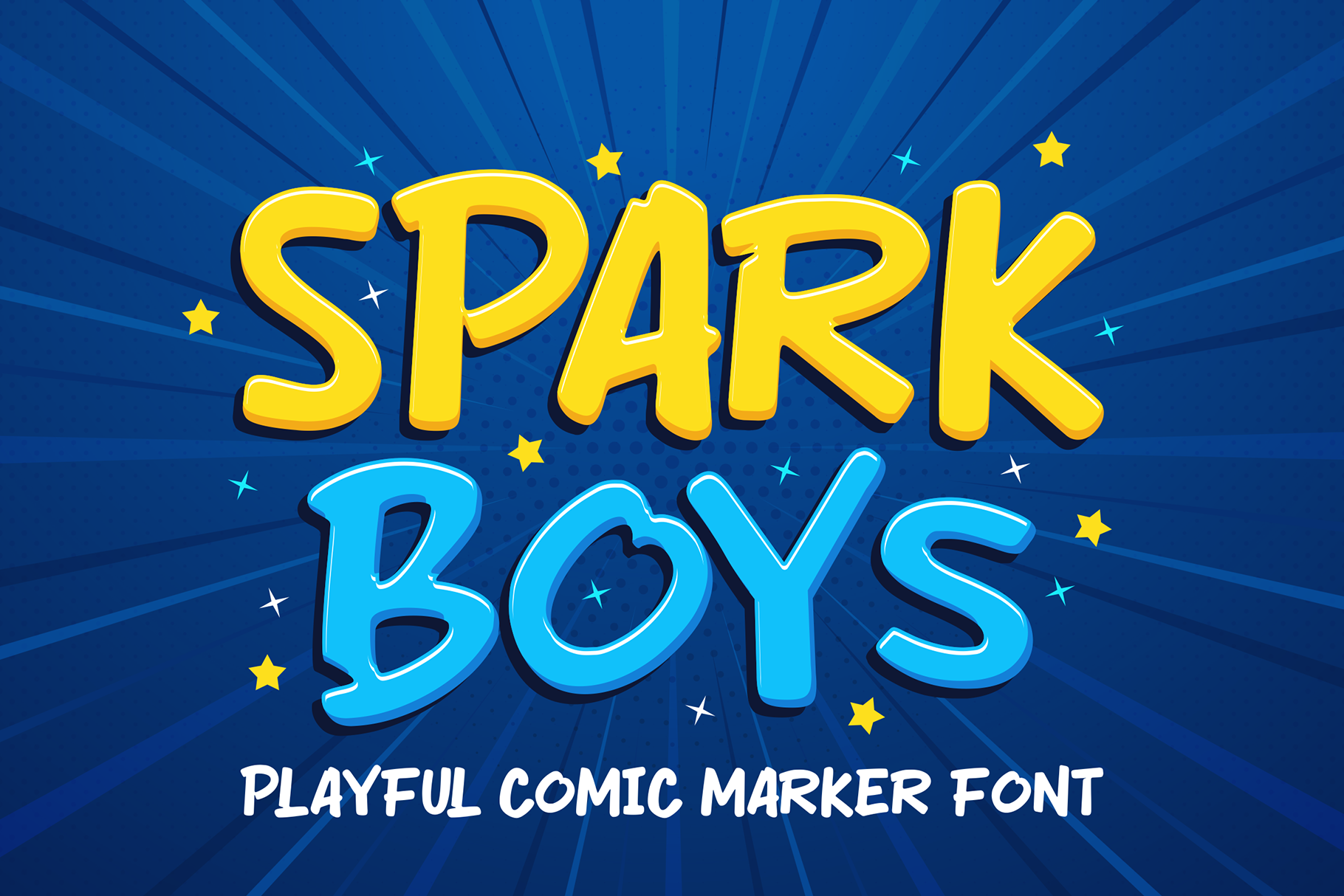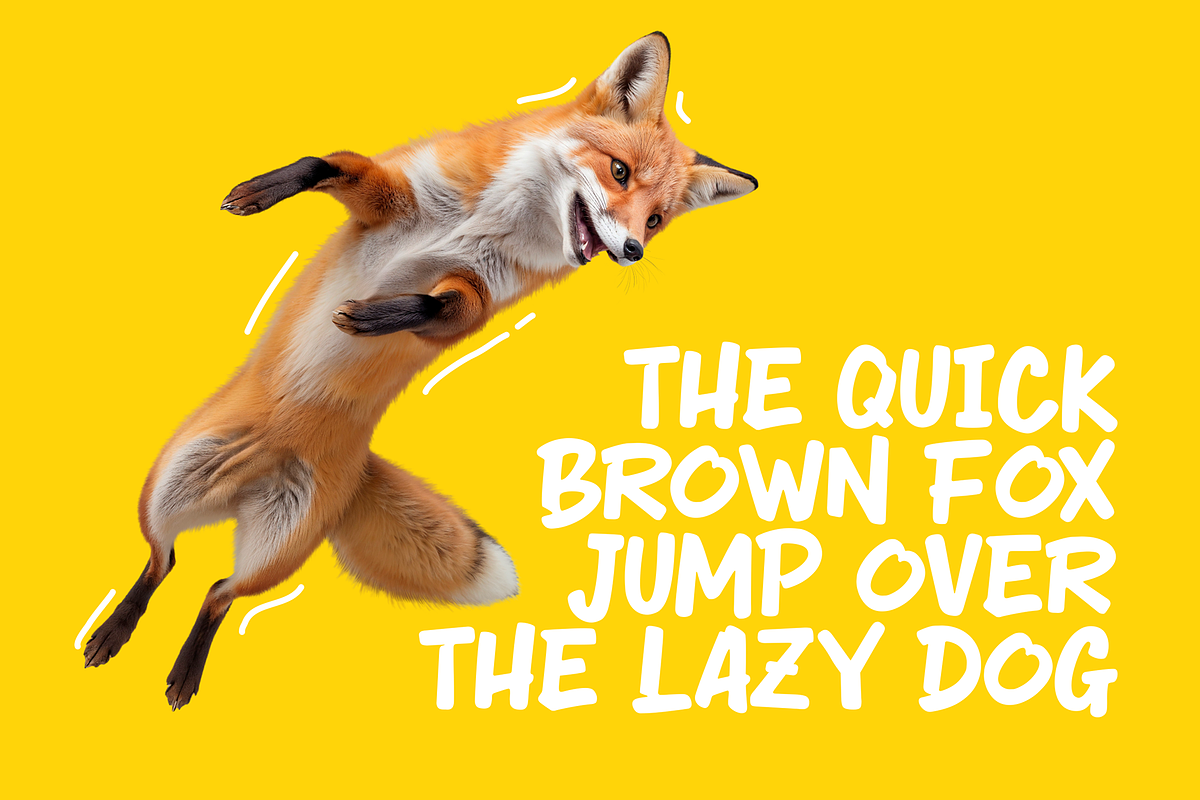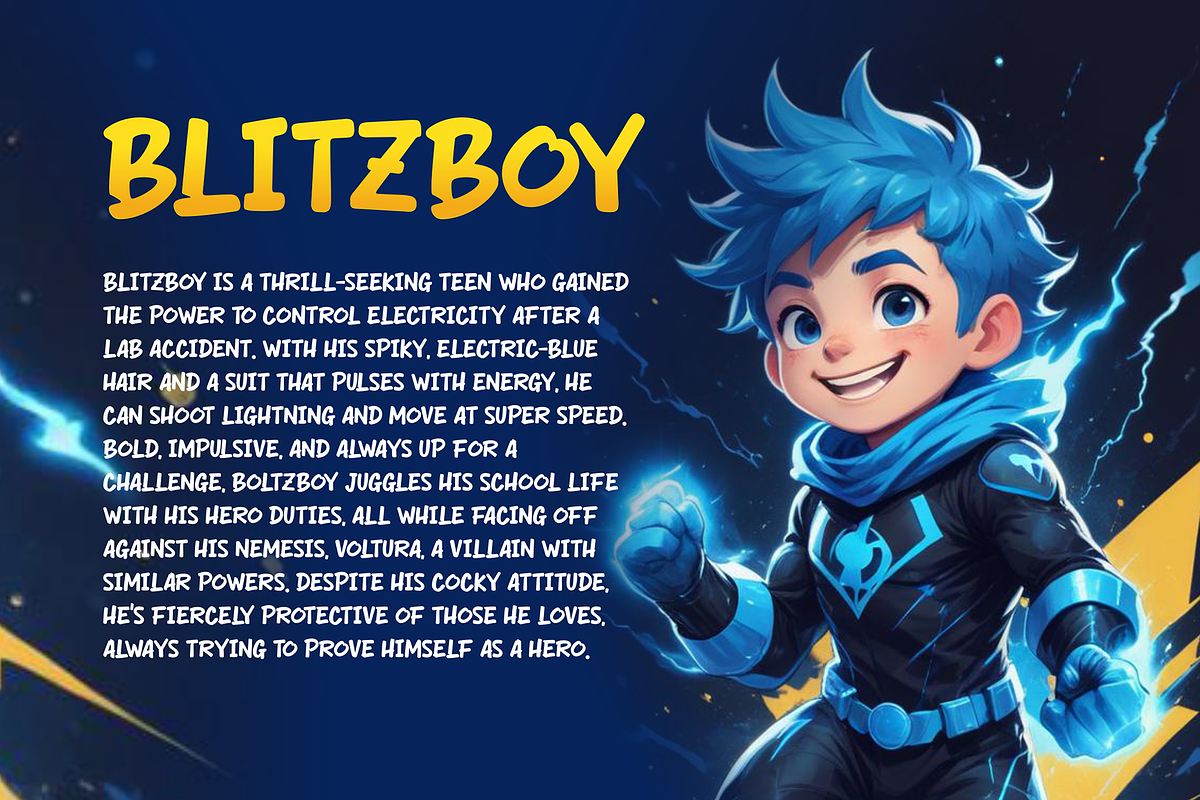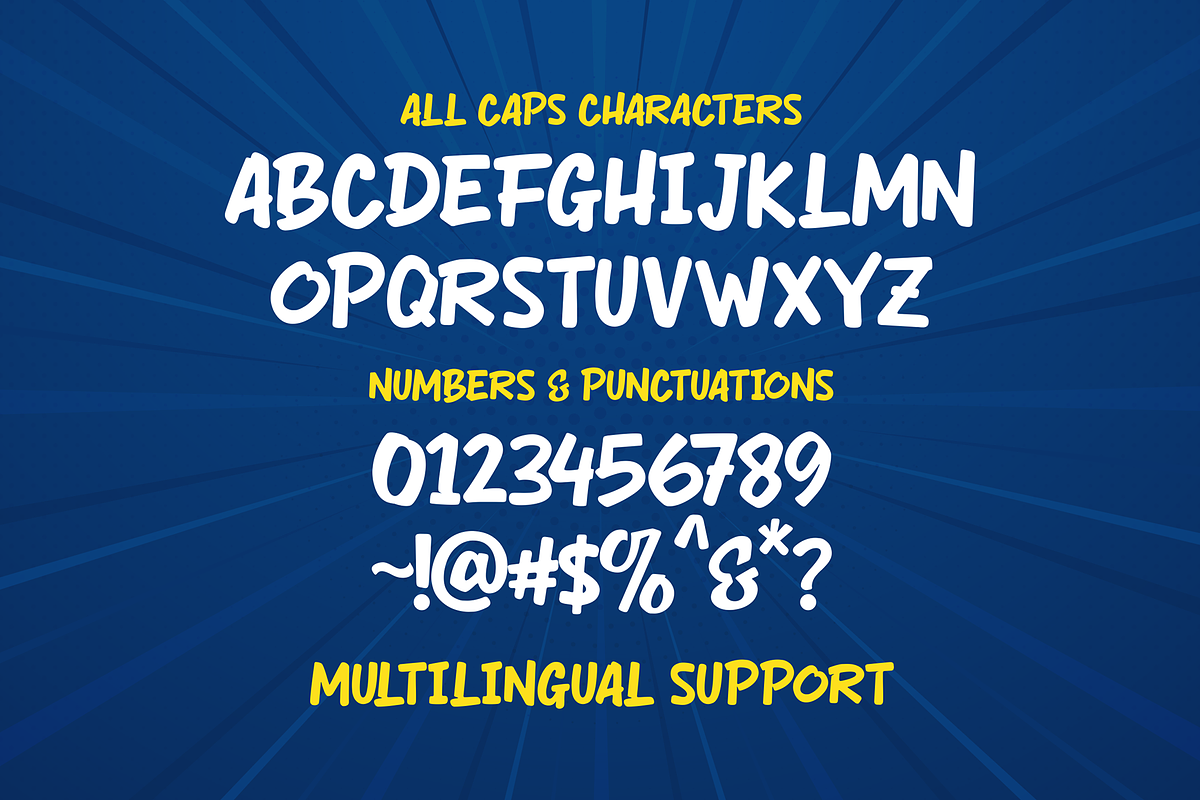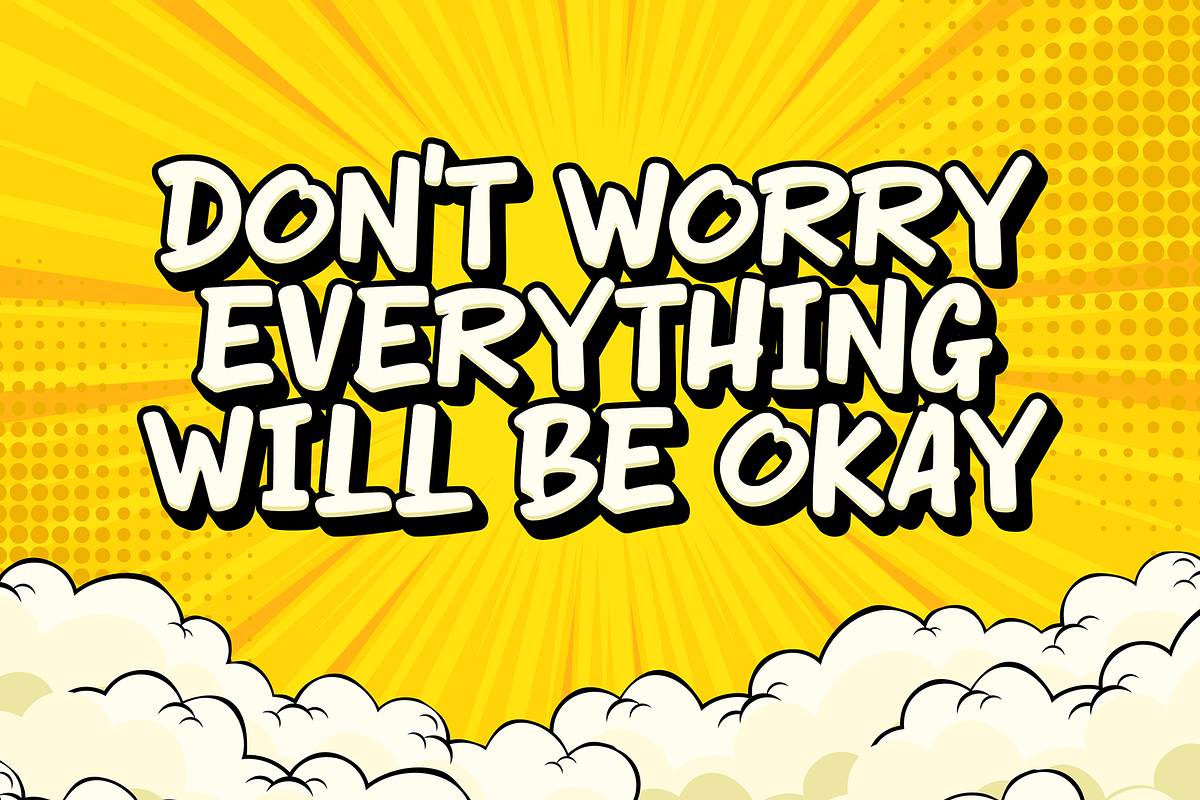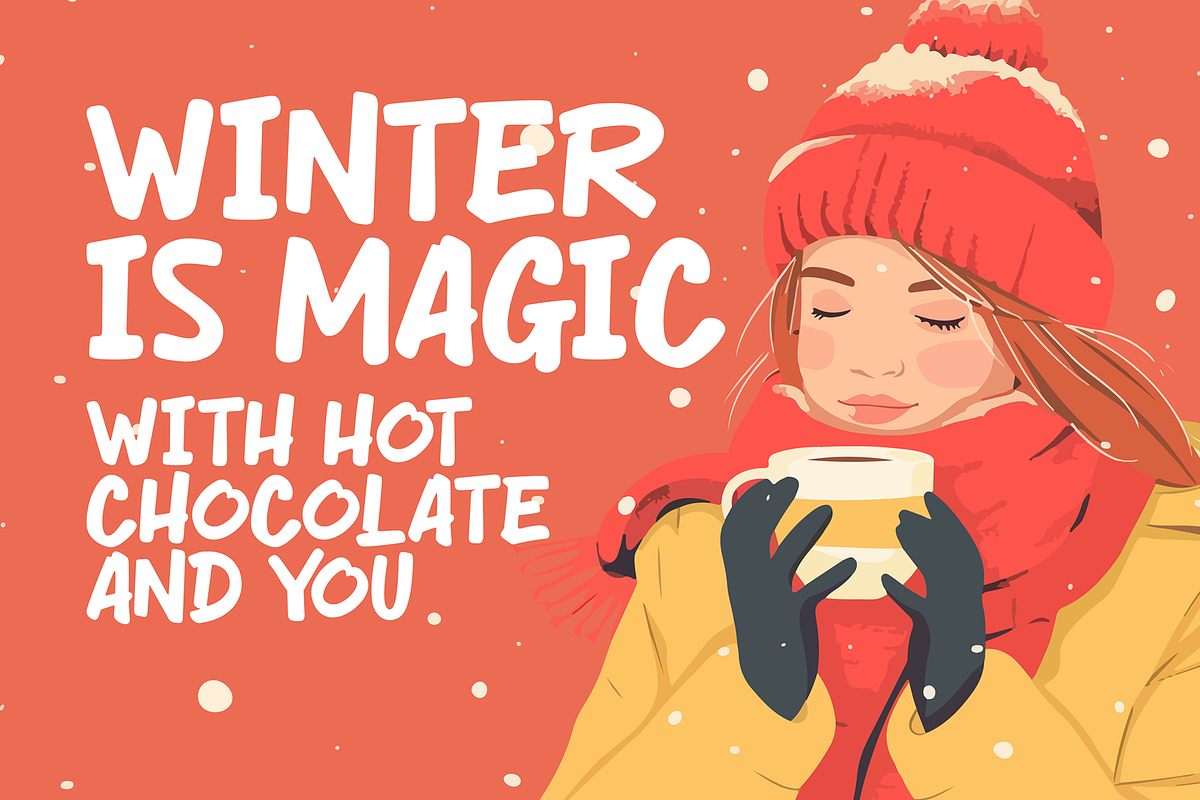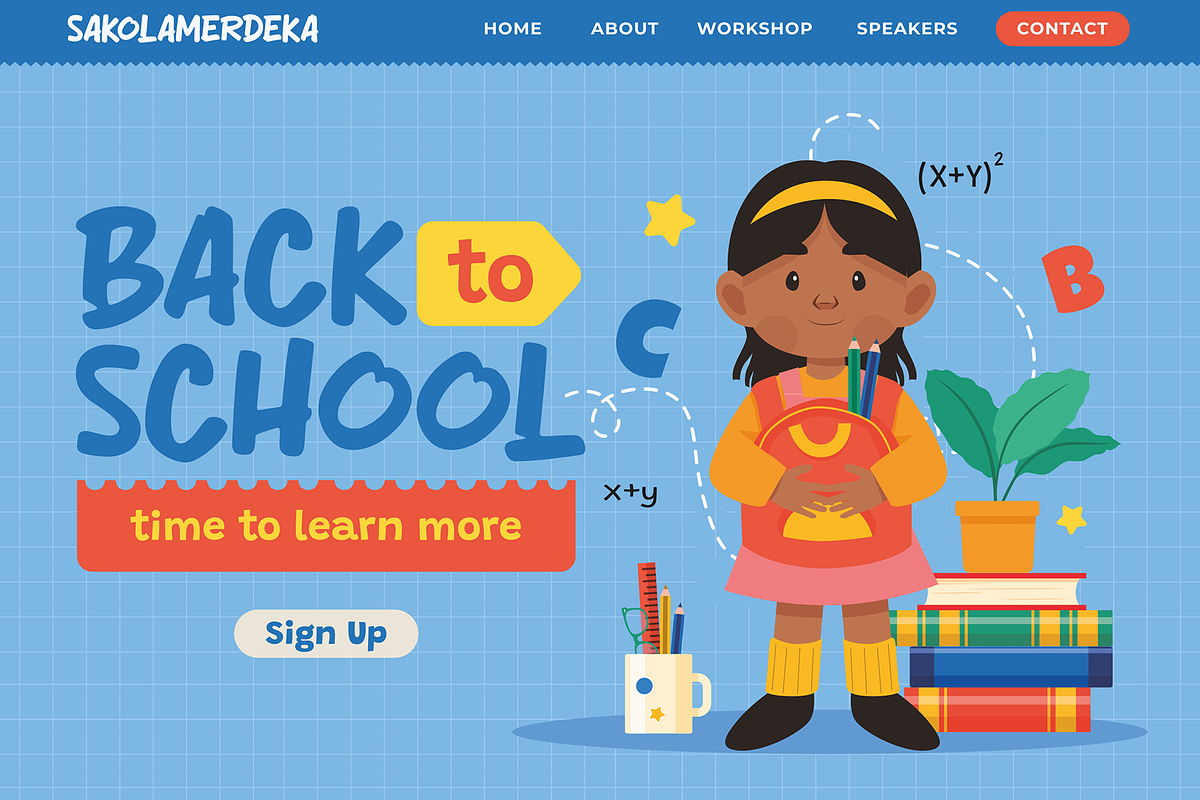
Spark Boys - Marker Comic Font
Spark Boys is a fun and energetic marker comic font that brings your designs a playful, youthful vibe. With its hand-drawn, bold strokes, this font captures the spirit of creativity and spontaneity.
🎨 Playful Vibe: Designed with a lively, marker-like feel, Spark Boys is perfect for adding a lighthearted and carefree touch to your projects. It's ideal for children's books, playful branding, or comic-style designs.
✍️ Bold and Expressive: Spark Boys' thick, dynamic letters ensure that your text stands out, offering a sense of fun and expression. Its playful style is perfect for projects that need an extra dash of personality.
Spark Boys adds energy and fun to any design, making it the go-to font for creative, comic-inspired projects that aim to captivate and entertain.